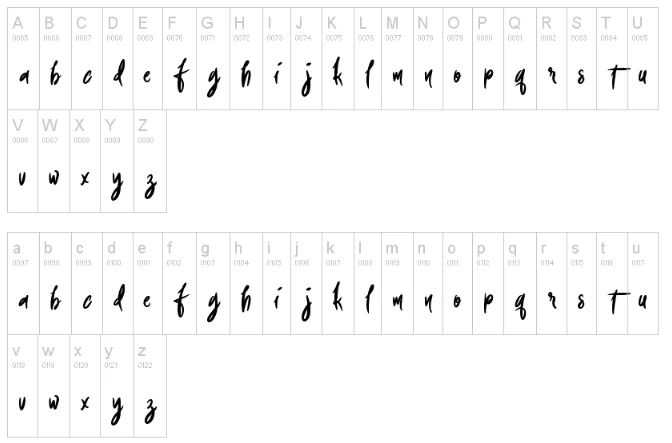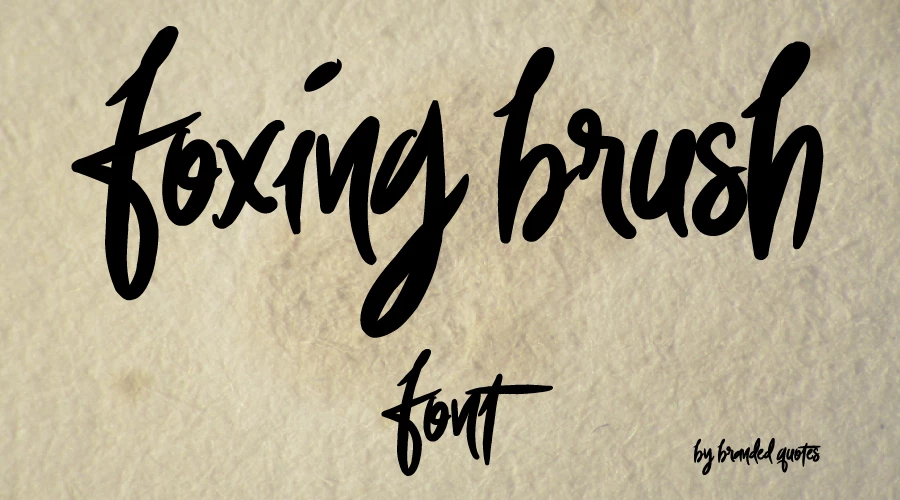
Hello there, buddies! This will be an excellent choice if you require a typeface script and brush. Welcome to the world of Foxing! The Branded Quotes were created and shared. It’s a new year, and The Branded Quotes is ready to welcome it with a bang! A completely new way of displaying your typography. Foxing is a cross between street calligraphy and the elegance of a script font. Curvy and tenacious! The subfamily of this font is Regular.
The typeface can be used in any project that requires multiple sizes, as all of this font’s sizes, whether small or large, are adaptable. You may make this typeface look more attractive by adding a few circular shapes. The typeface is ideal for all types of high-resolution wallpaper since its quality does not deteriorate at high resolution. This typeface is available in two formats: TTF and OTF. The font is also applied in projects where a script font is required, although the stroke of this brush font in such a project will undoubtedly seem more classy.
It was created as a one-of-a-kind typeface with brushy strokes and lines. As a result, the font will work well in a variety of text-based projects. You may use it to create logos, posters, cards, branding, labels, product packaging, and more. With black backgrounds, the font looks fantastic. You may use it with a black background and a bold white form; trust me, it will look fantastic.
| Style | Script |
| Designer | Branded Quotes |